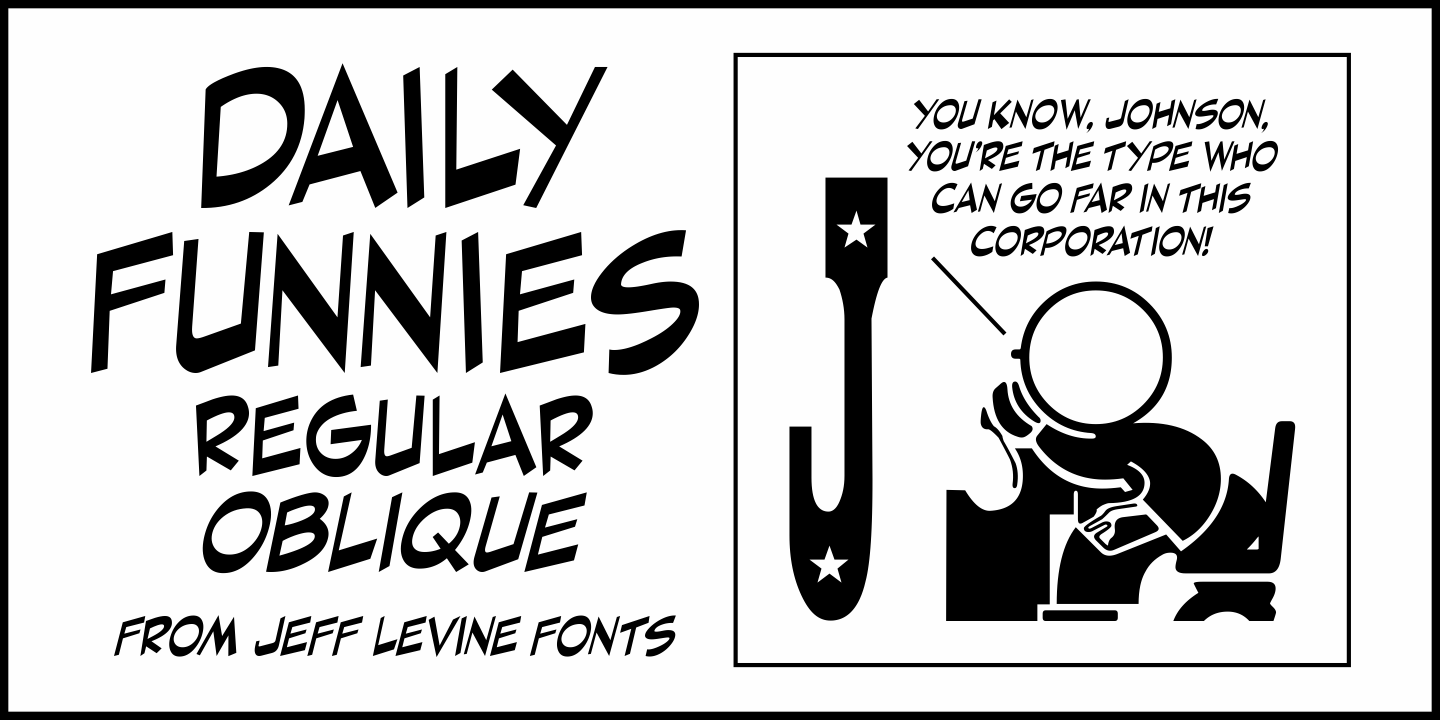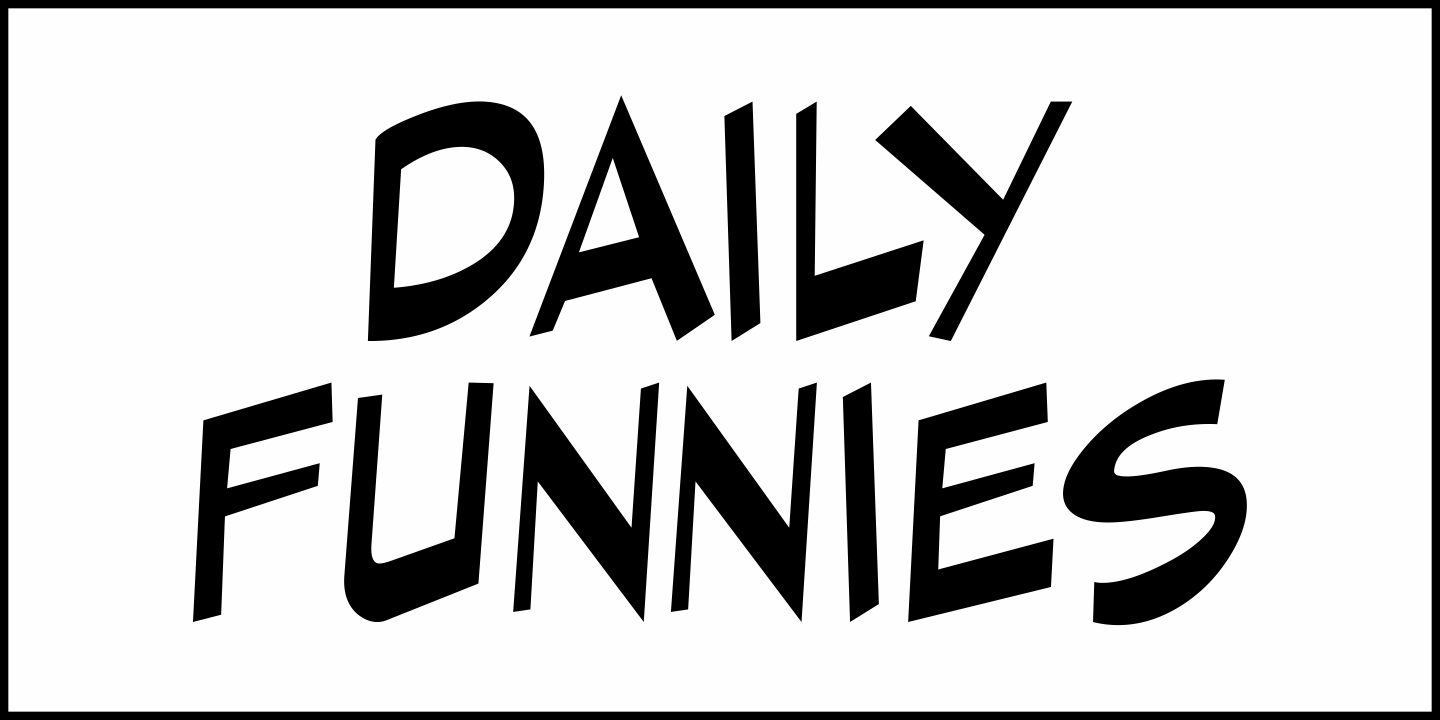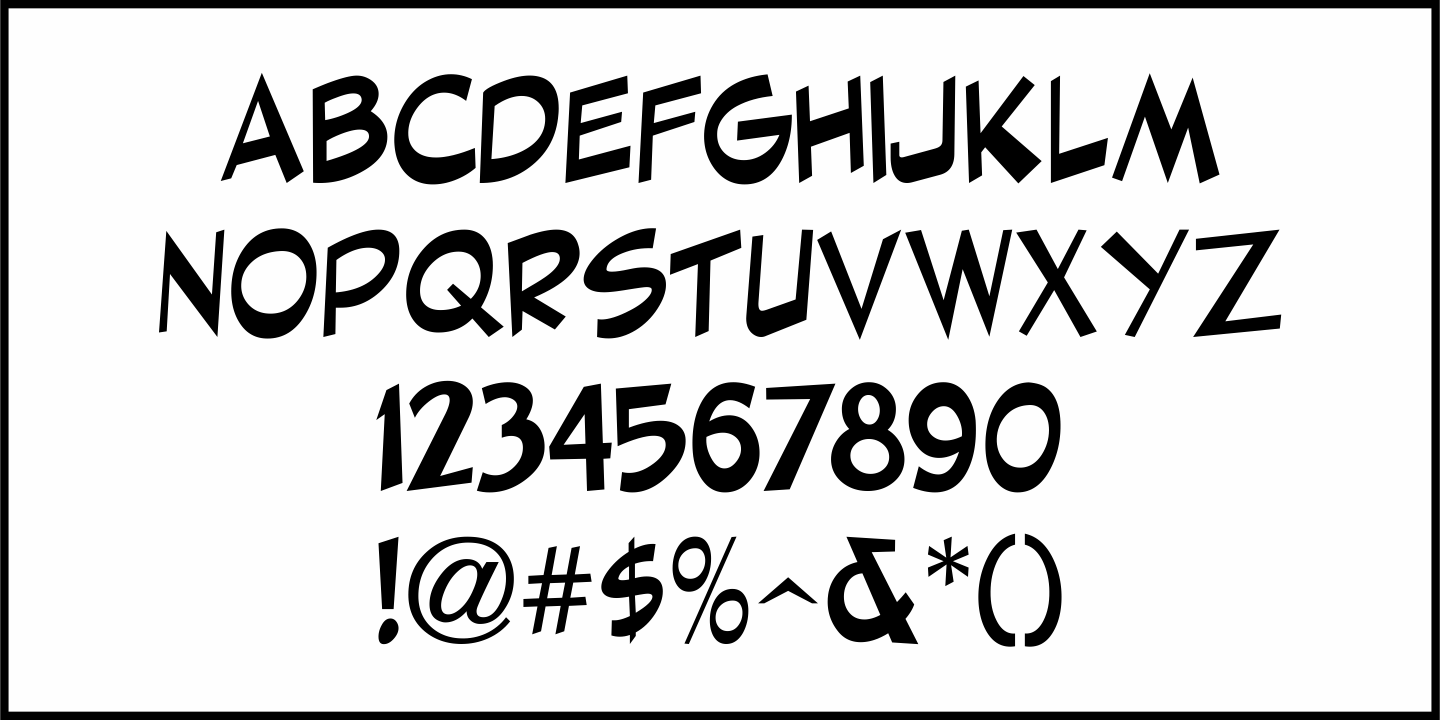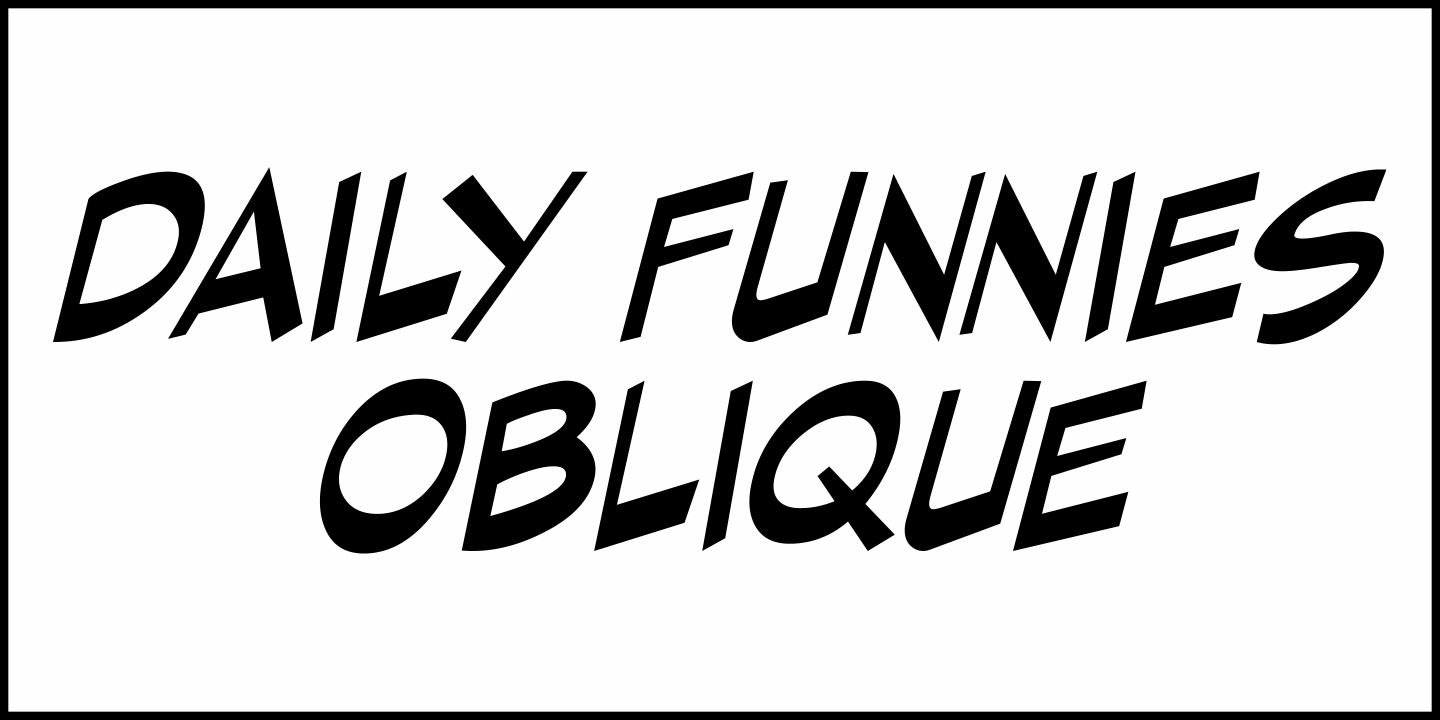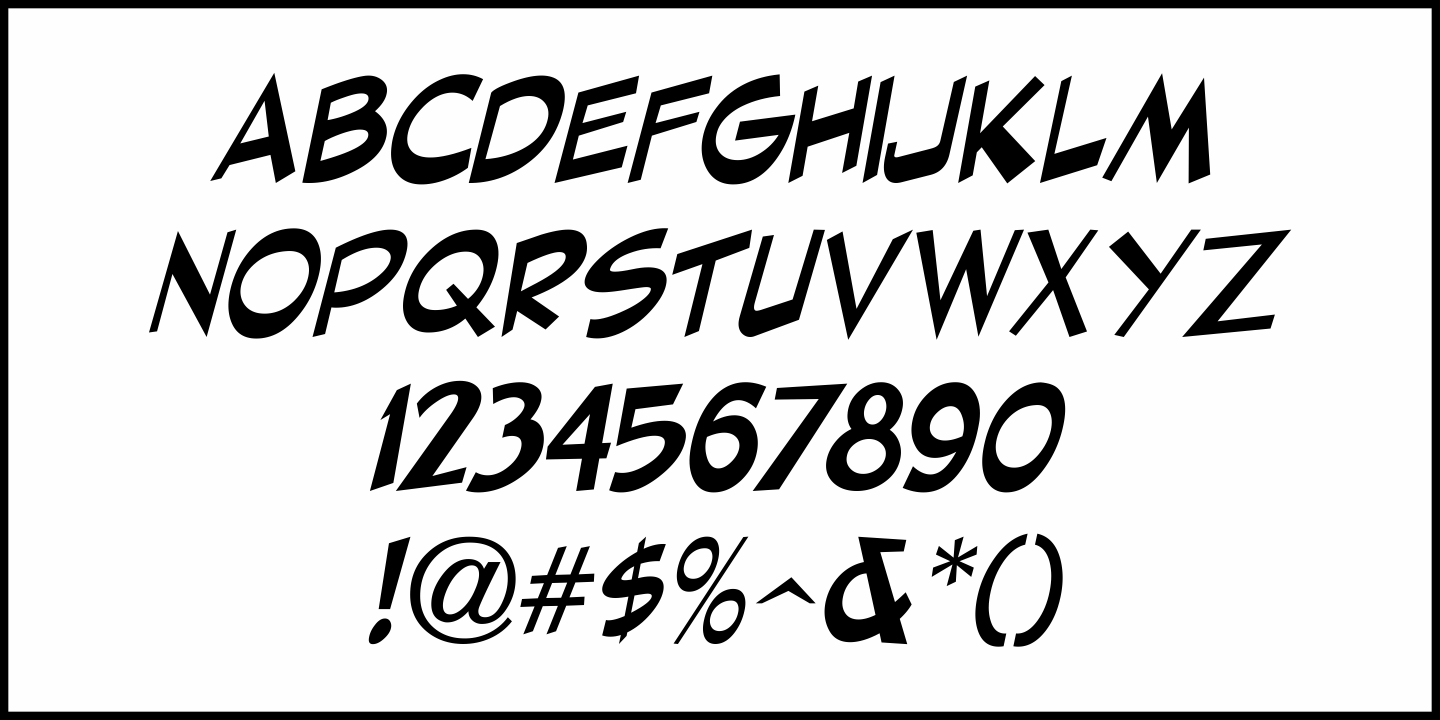
Daily Funnies
It is said that imitation is the sincerest form of flattery.
Daily Funnies JNL (available in both regular and oblique versions) was inspired by and somewhat modeled after the hand lettering of Walt Kelly, the creator of the classic 'Pogo” comic strip.